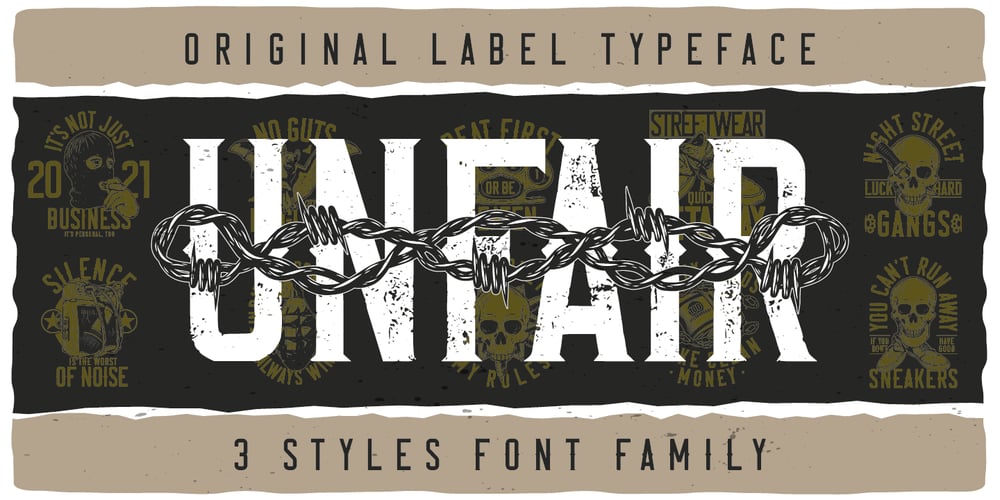
Unfair
Unfair font
Unfair Font Family was designed by Oleg Voznyy and published by Vozzy. Unfair contains 9 styles and family package options. Introducing a vintage look label font family named “Unfair”. All available characters you can see at the screenshot. This font have 3 styles with 3 version of each – Regular, Shadow and Rough. This font will good viewed on any retro design like poster, t-shirt, label, logo etc.